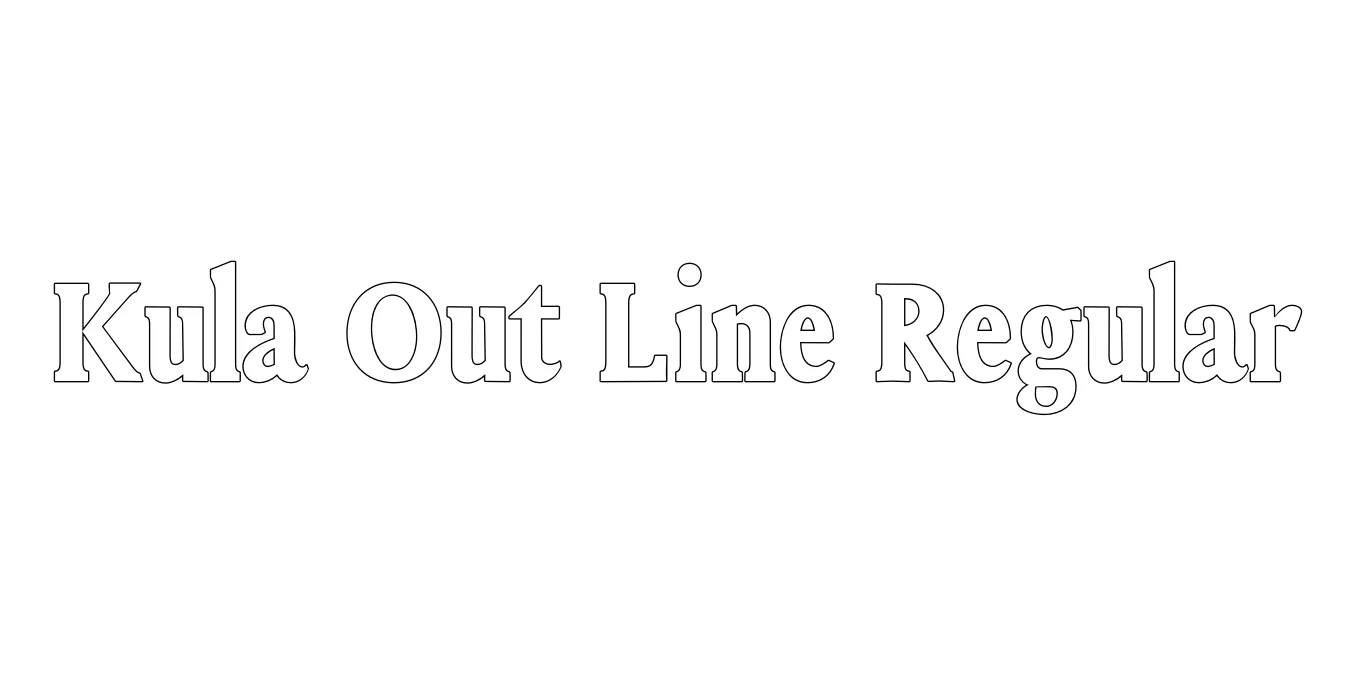
Kula Out Line Regular
Designed by Craft Supply Co.
| Font Name | Kula Out Line |
| Category | Display / Decorative |
| Designer | Craft Supply Co. |
Kula Out Line Regular is a bold and striking display typeface that draws inspiration from vintage industrial signage and modern geometric design. Its structural integrity is built upon a heavy slab-serif foundation, but its hollowed-out interior provides a sense of lightness and transparency that makes it highly versatile for layered typography. The font is meticulously crafted to ensure that each character maintains its visual weight while allowing background textures or colors to show through the outline stroke.
This typeface has gained popularity among graphic designers for its ability to command attention without feeling overly dense. Whether used in a minimalist modern layout or a more complex retro-themed design, Kula Out Line Regular offers a unique aesthetic that bridges the gap between classic craftsmanship and contemporary digital art. Its clean lines and balanced proportions make it an excellent choice for high-impact visual communication in both print and digital formats.
Kula Out Line Regular Best Uses
Perfect for creating bold, attention-grabbing titles in magazines and posters.
Excellent for logo design that requires a strong, architectural feel.
Highly effective for t-shirt prints and streetwear brand typography.
Ideal for high-contrast overlays on photos and promotional graphics.